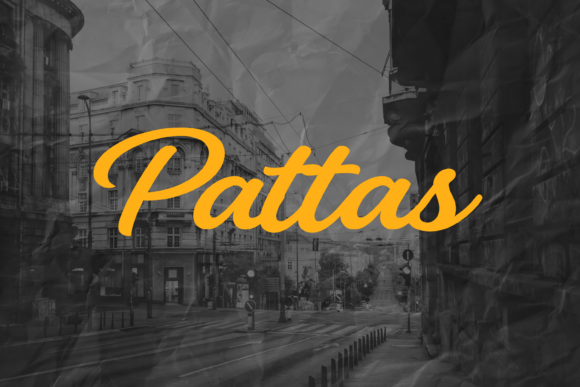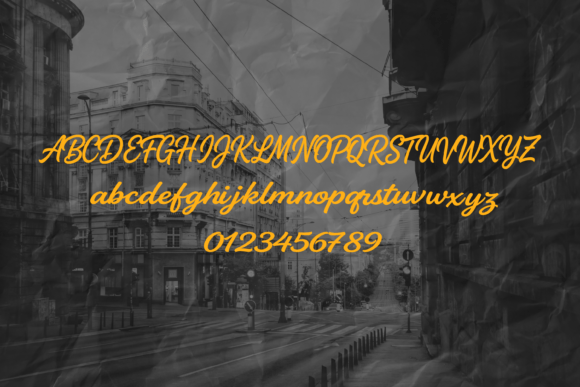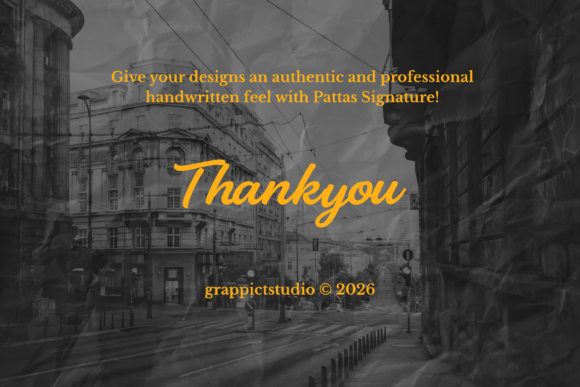
Introduction to Pattas Signature Font
Do you ever find yourself stuck in a creative rut, desperately searching for that elusive spark to ignite your next design project? You know, that moment when the perfect font can elevate an entire concept and transport your audience to a bygone era? For designers, that elusive spark is often a high-quality, unique typeface that can add a touch of nostalgia and urban energy to their work.
Enter Pattas Signature Font, a retro script typeface that’s about to become your new go-to design resource. With its relaxed, rhythmic baseline bounce and confident forward-slanted posture, this font is perfect for adding a touch of vintage charm to your creative projects.
Pattas Signature Font
- High-quality design resource perfect for creative projects
- Unique, elegant script font ideal for adding a touch of sophistication to your designs
- Transparent background for easy layering and customization
- Perfect for use in logos, signatures, and other design elements where a creative, handwritten feel is desired
Honest Review: Pattas Signature Font
As a designer, I’m always on the lookout for high-quality design resources to elevate my creative projects. The Pattas Signature Font is one such resource that caught my attention, and I’m excited to share my honest review with you.
- ✨ Unique and stylish design that’s perfect for branding and logos.
- ✨ Transparent background, which makes it easy to use in any design scenario.
- ⚠️ Limited character set, which may not be suitable for extended text content.
Overall, I’m impressed with the Pattas Signature Font. Its unique design and high-quality files make it a great addition to any designer’s toolkit. While it may have some limitations, it’s still a valuable resource for branding and logo design. If you’re looking for a stylish and professional font, I’d definitely recommend giving it a try.
Getting the Most Out of Pattas Signature Font
Experiment with different font sizes, colors, and styles to create a unique look for your creative project. Use the font in combination with other design elements to add visual interest and depth.
The Pattas Signature Font is ideal for creating logos, branding materials, and marketing collateral. It’s also a great choice for designing invitations, menus, and other print materials where a high-quality font is required.